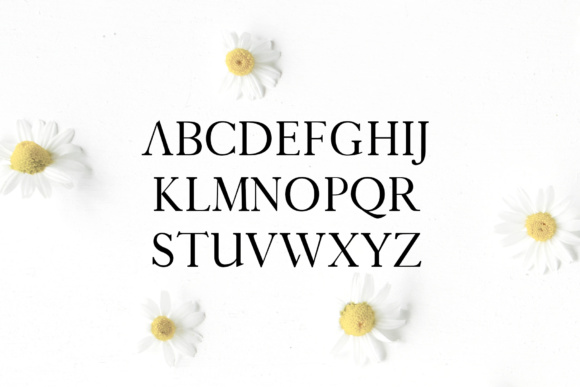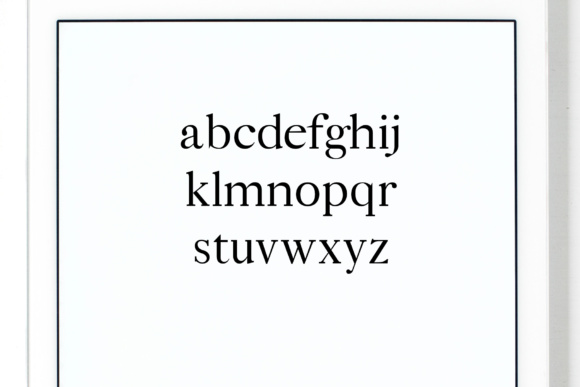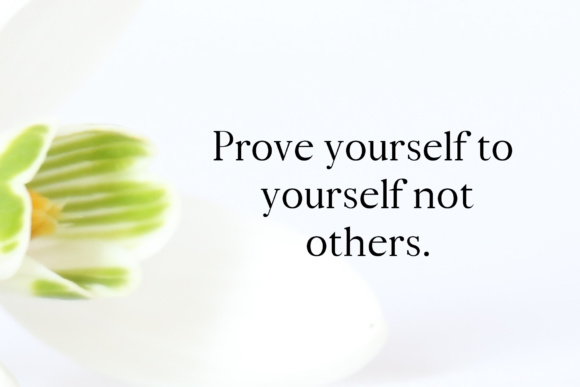
Introduction to Jotham Font
The Jotham Serif Typeface is a clean and beautiful serif font family, which contains 4 weights and It features a unique and modern serif look and feel.
Perfect for gorgeous logos, titles, web layouts and branding It looks gorgeous in all caps with a wide-set spacing if you want to try a classy look, or beautiful on its own in capital and lowercase letters for something completely timeless.